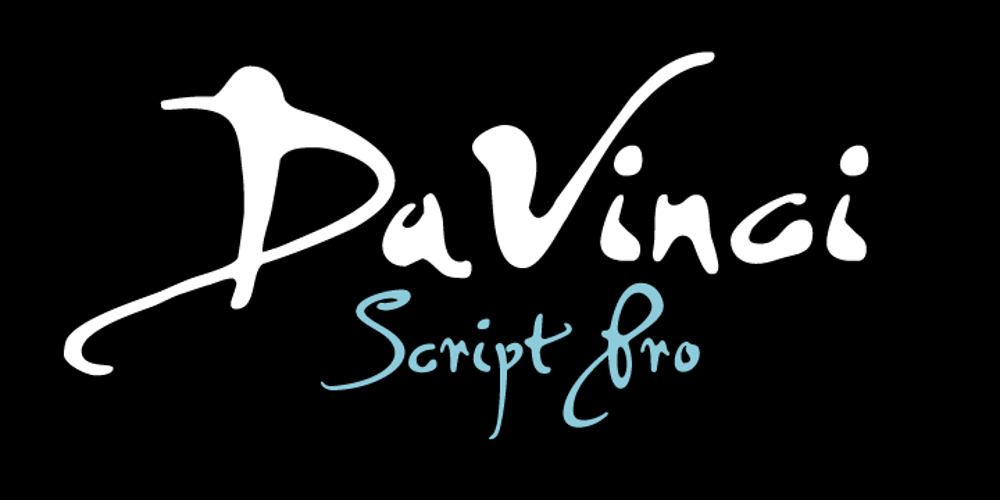
PF DaVinci Script Pro
PF DaVinci Script Pro font
PF DaVinci Script Pro Font Family was designed by Panos Vassiliou, Dimitris Foussekis and published by Parachute. PF DaVinci Script Pro contains 2 styles and family package options. PF DaVinci Script Pro is based on DaVinci’s own handwriting. He is considered to be one of the greatest painters of all time and perhaps the most diversely talented person ever to have lived. This great Italian artist left us with a unique writing (used to write from right to left), which we attempted to decode and simplify with PF Da Vinci Script Pro. Many of these letters are free interpretations and do not stick to the original forms. This typeface comes in 2 different styles: Regular and a more informal style called Inked. The all new “Pro” version supports all European languages including Latin, Greek, Greek Polytonic and Cyrillic. It comes loaded with many stylistic alternates in all languages.